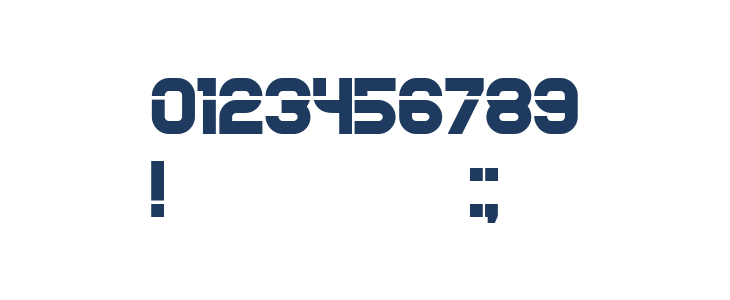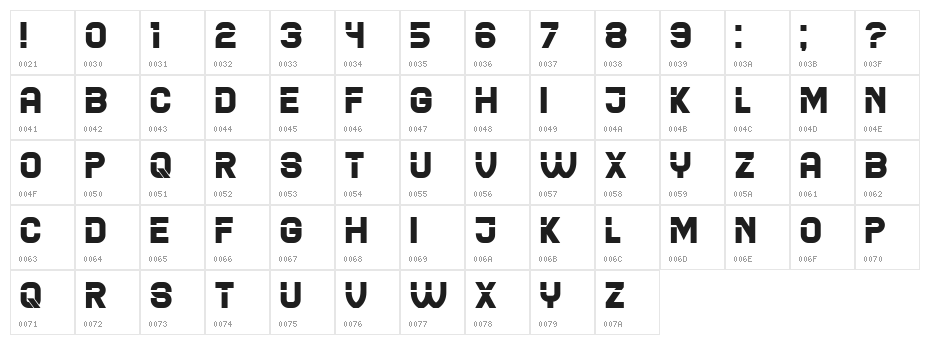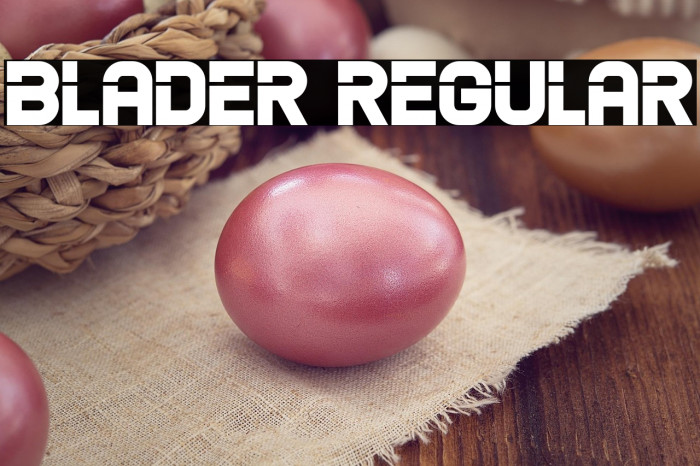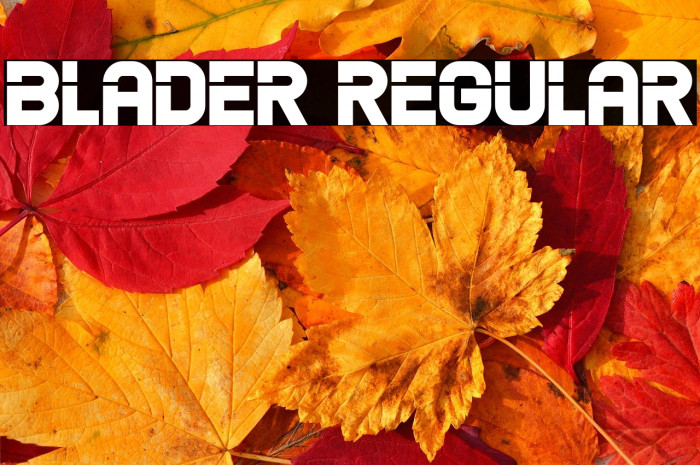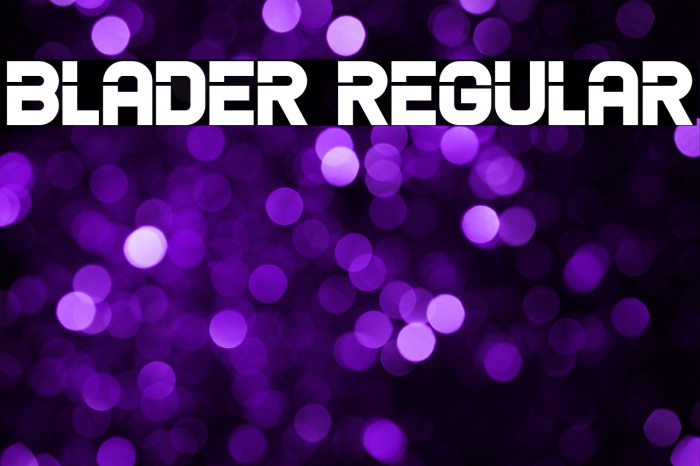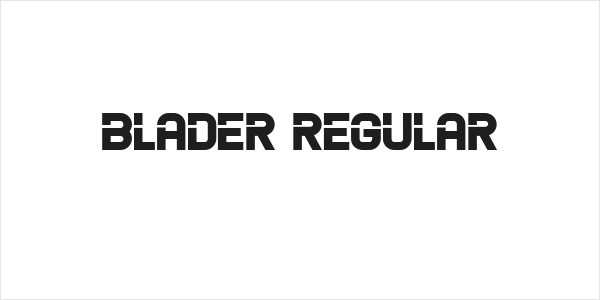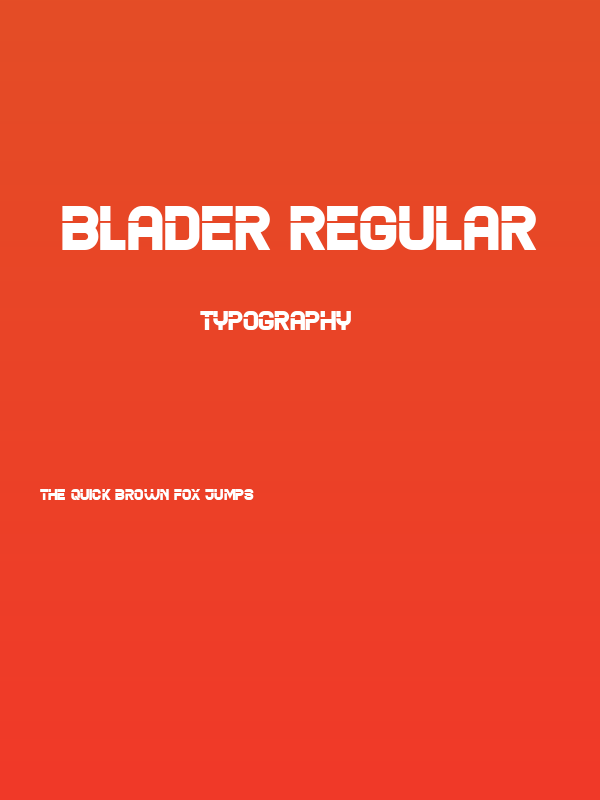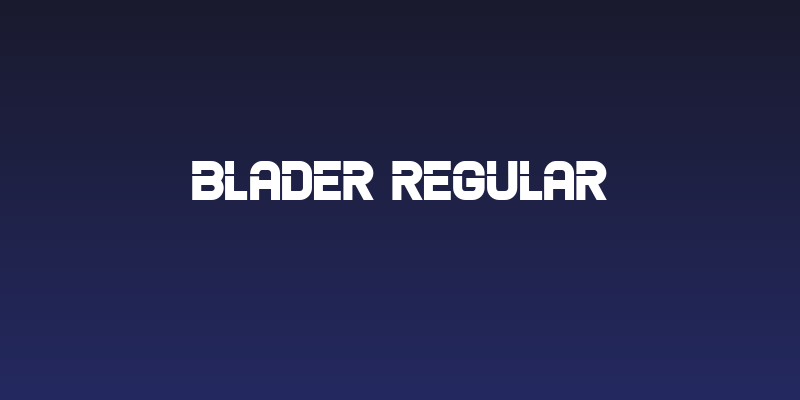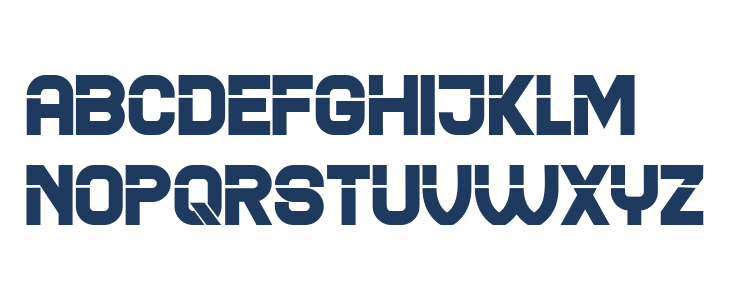
Blader Regular Font
Blader Regular Description
This font features a bold, geometric design with a futuristic appeal. The characters are constructed with thick, block-like strokes that create a sense of strength and modernity. The angular cuts and sharp edges give it a distinctive, edgy look. The uppercase letters are uniform in height, while the numerals maintain a consistent style that complements the alphabet. The exclamation mark is bold and matches the overall aesthetic. This font is ideal for projects that require a strong visual impact and a contemporary feel.
| Proposed Projects | Ideal for branding, posters, headlines, and any design requiring a modern, impactful typeface. |